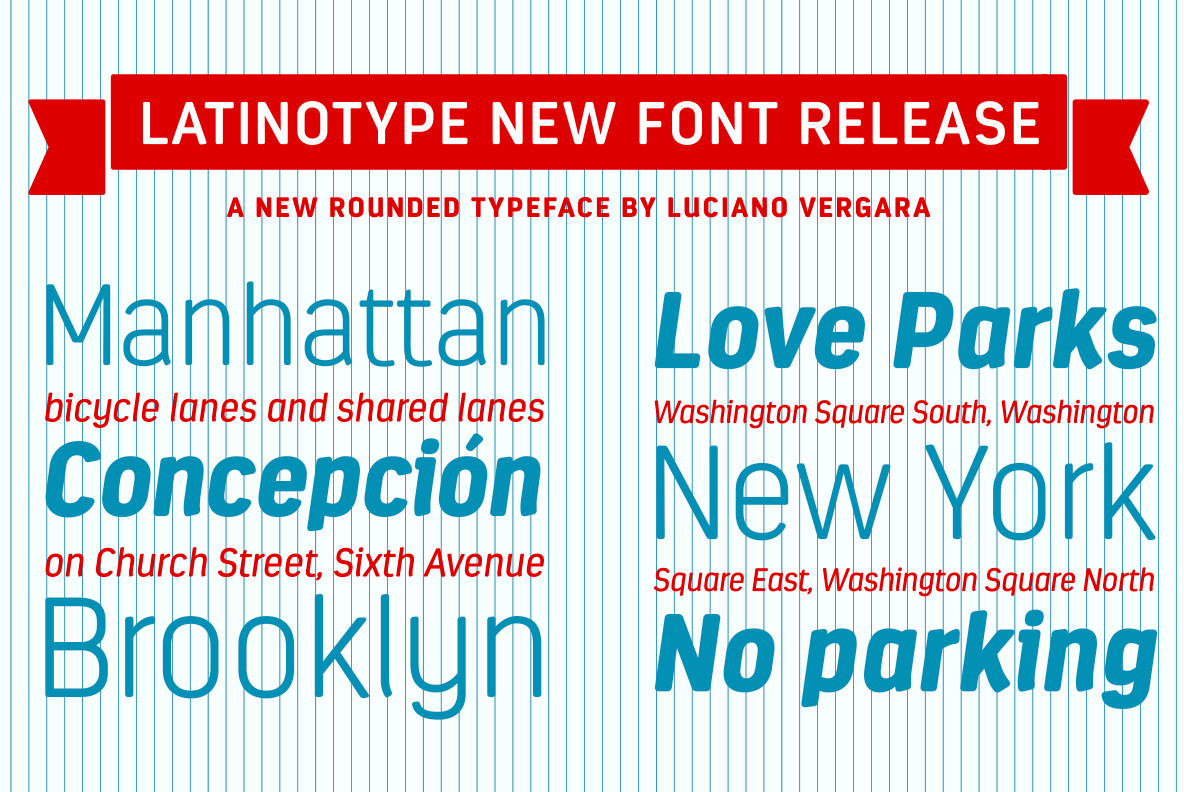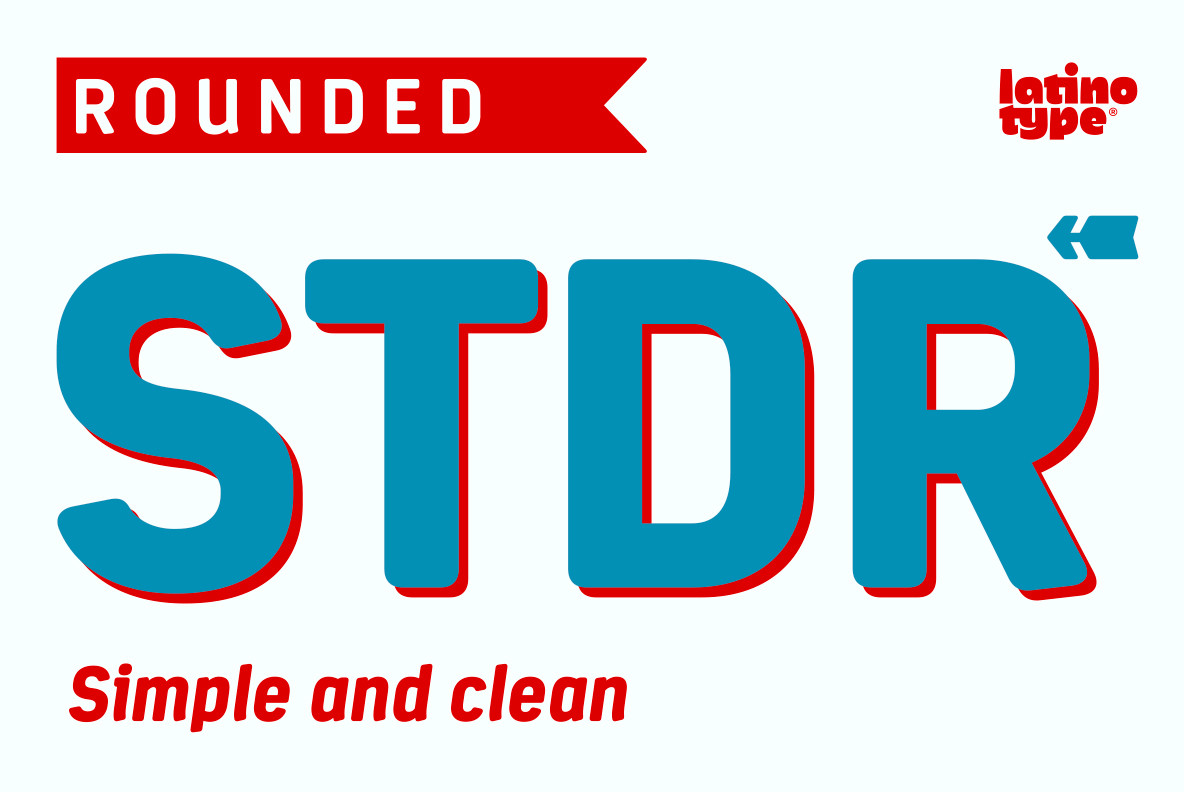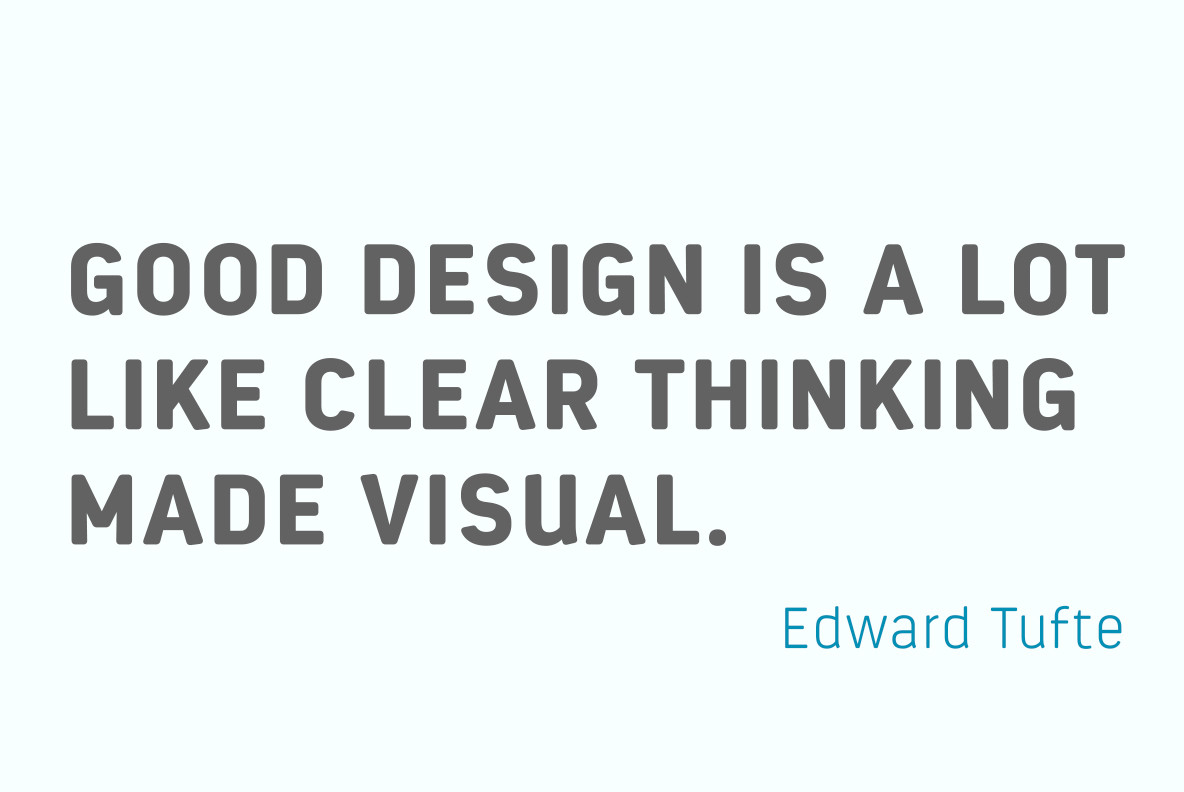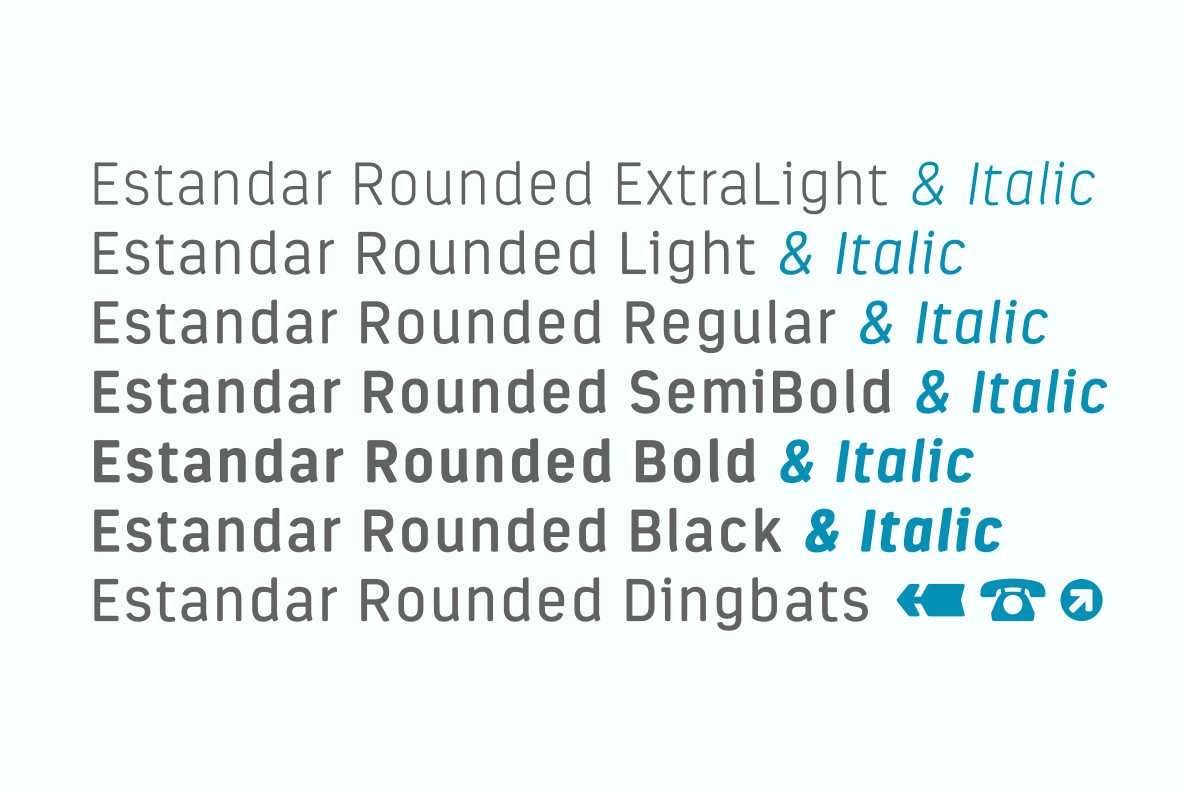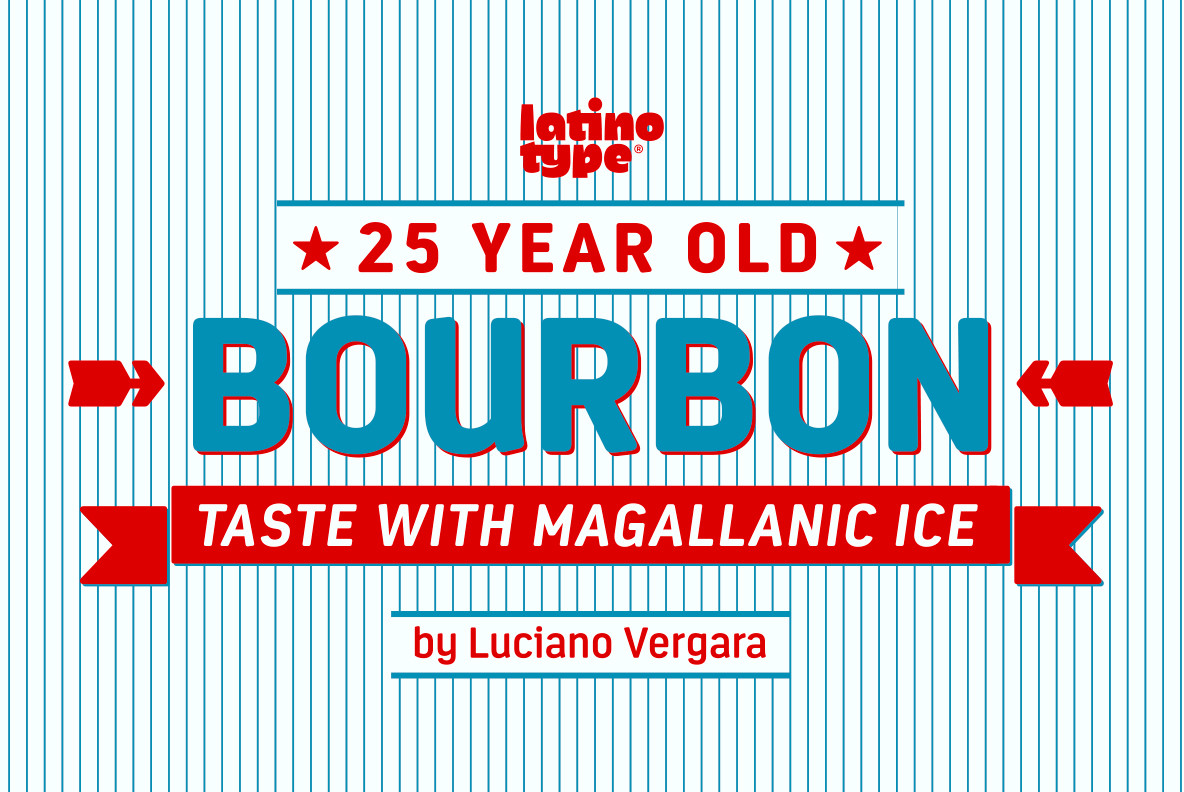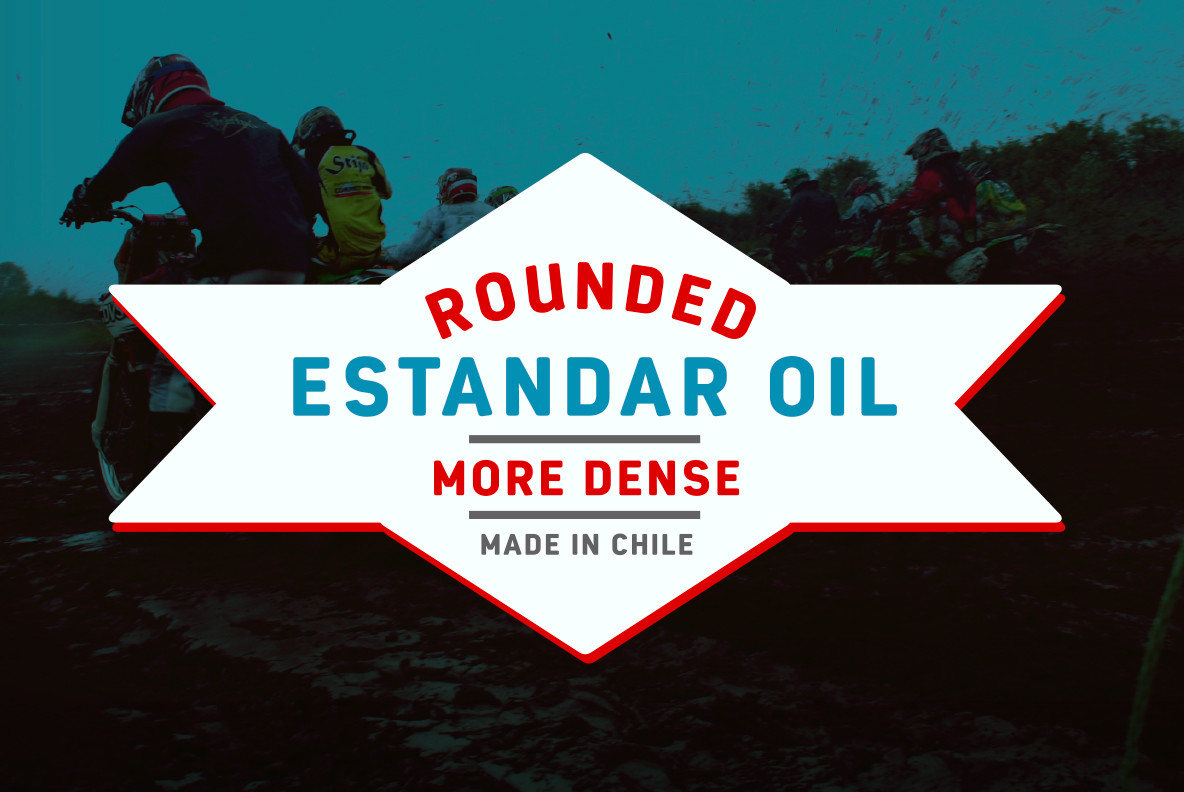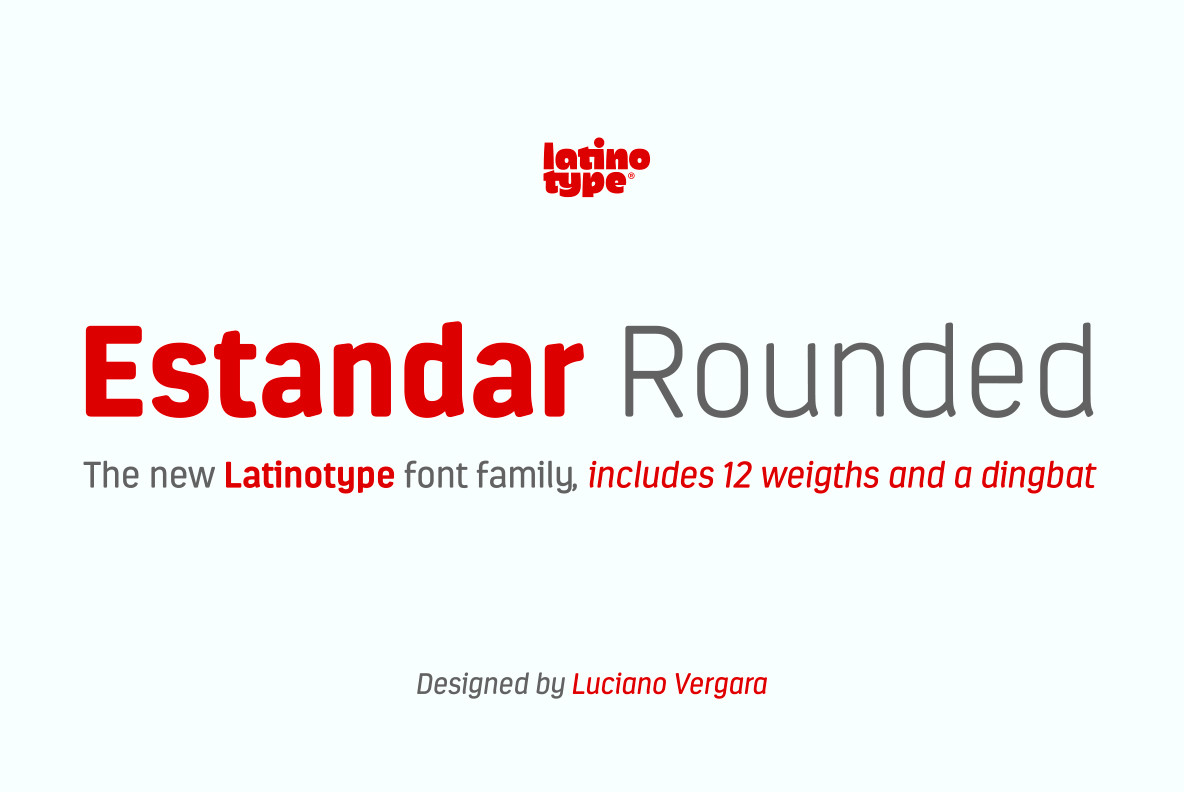
Estandar Rounded Font
Estandar Rounded is a retro and vintage wayfinding sans serif font, inspired by old signal in central park and Europe. Is a Condensed sans with their tall x-height, the family has 6 Weight, its italics and a dingbat. It is an extension of Estandar font.